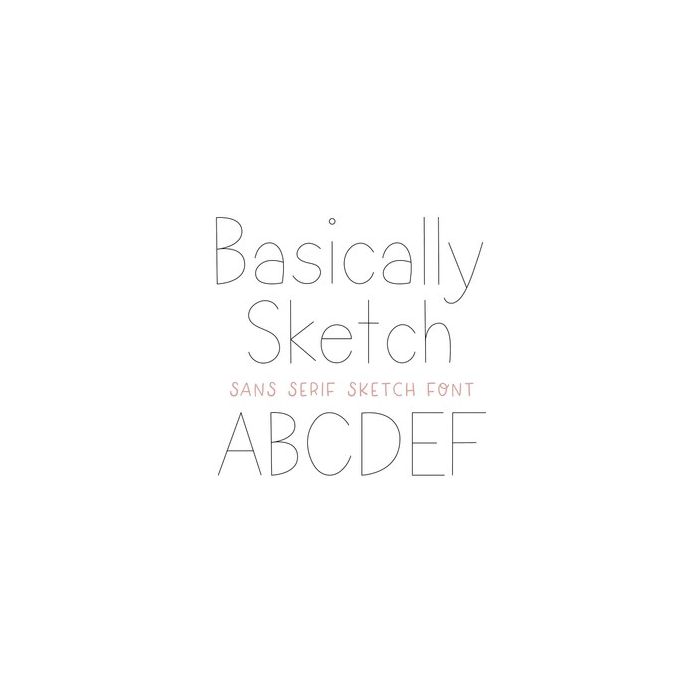
BFC Basically Simple Sketch Font
Basically Sketch is a simple sans serif sketch font. Includes intl characters! Find our matching cut font called "Basically Simple".